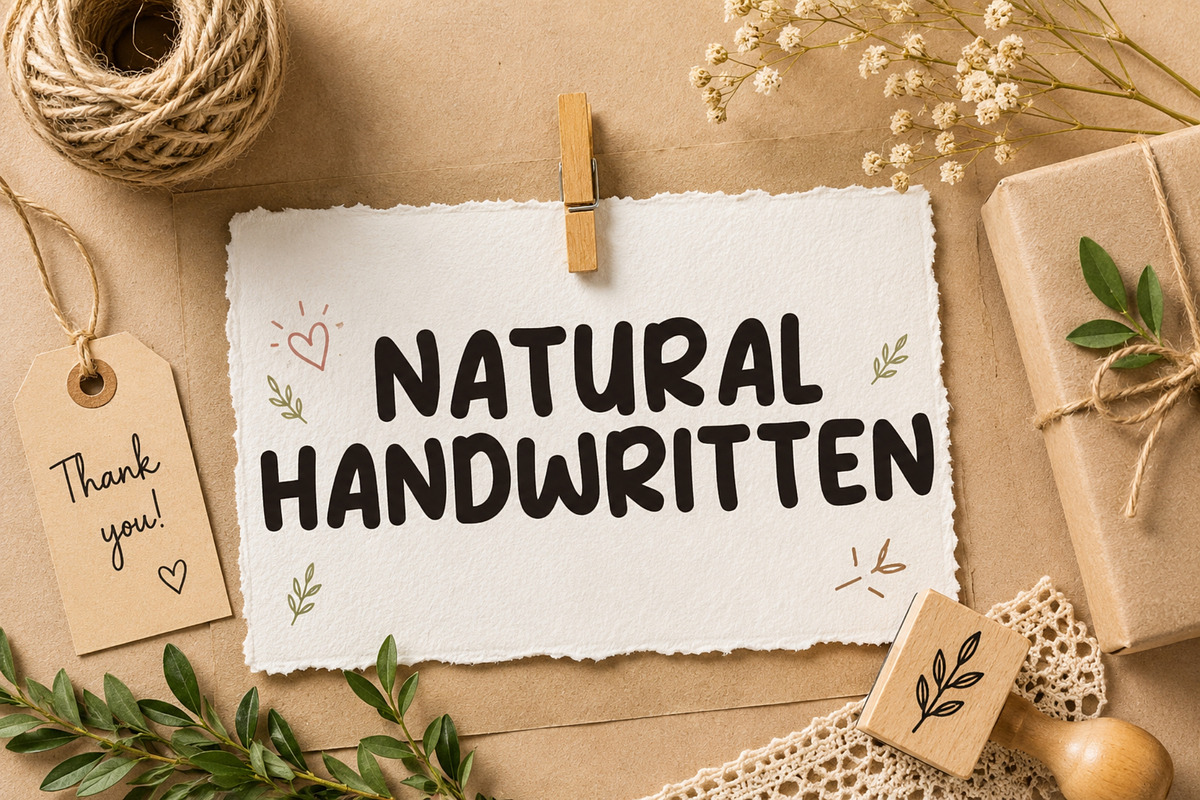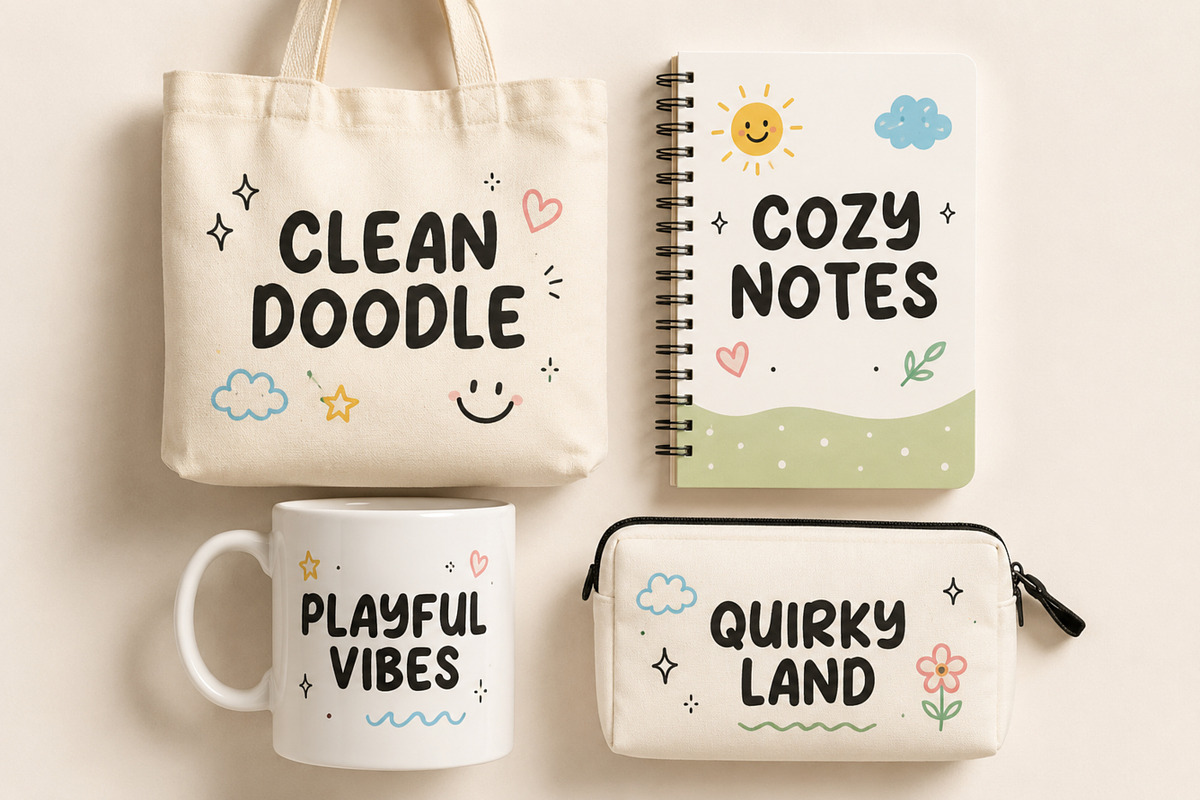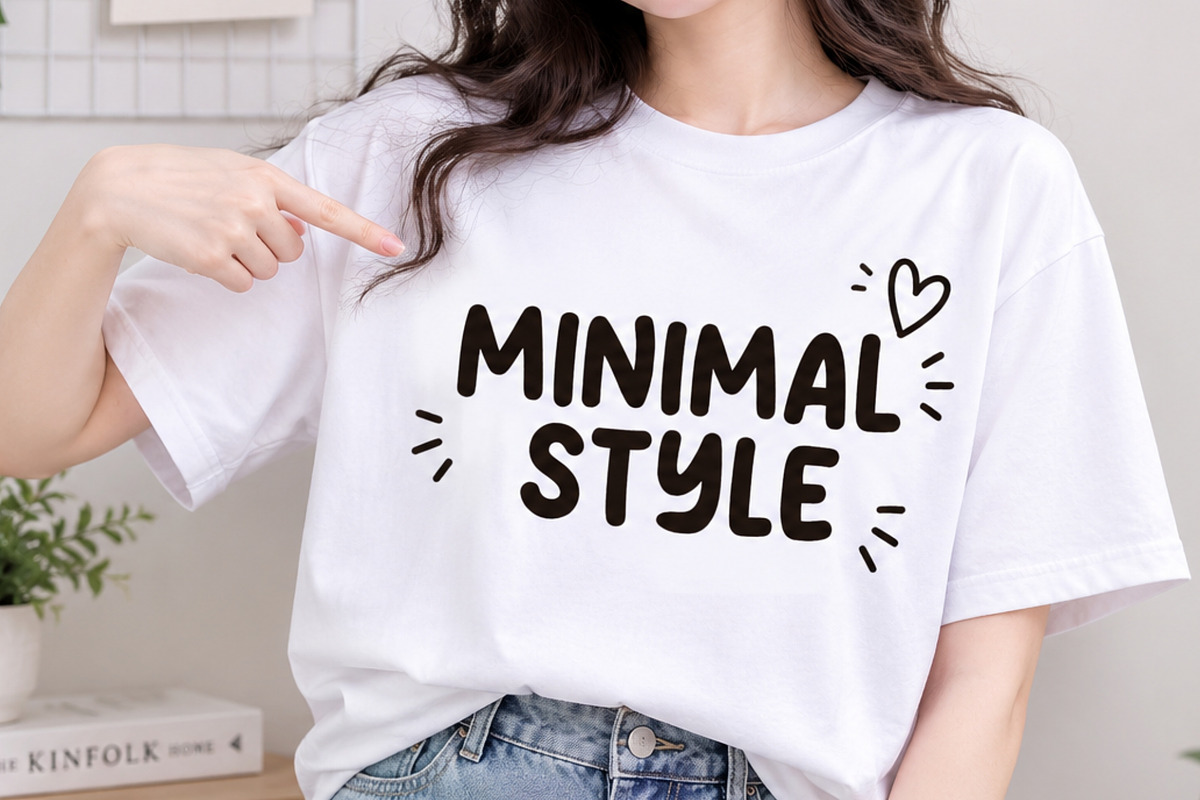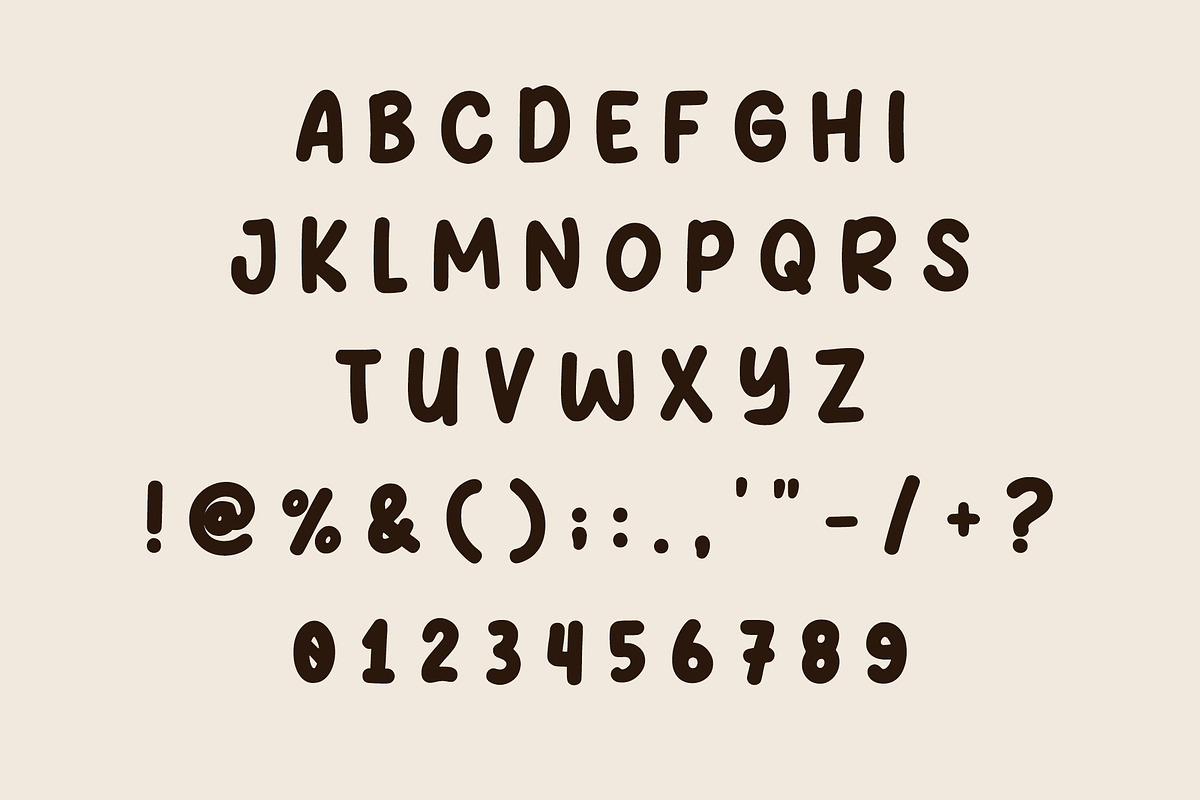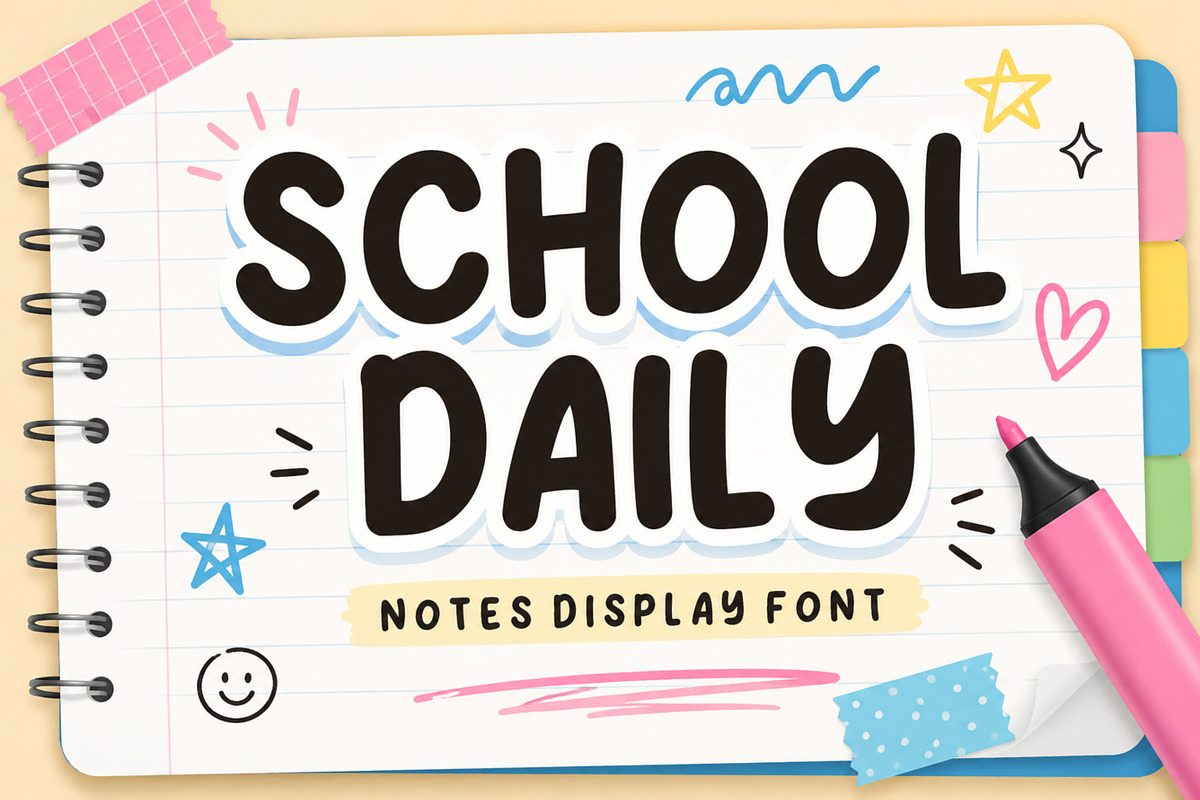
School Daily
School Daily is a cute handwritten display font inspired by school notebooks, classroom doodles, and everyday creativity. Its bold, rounded letterforms create a friendly and cheerful look, making it ideal for kids’ projects, educational materials, and modern handmade designs.
Whether you’re designing classroom decorations, printable worksheets, planner stickers, greeting cards, sublimation products, or Cricut and Silhouette projects, School Daily adds a warm, playful personality to every creation.
School & classroom decorations Teachers resources Kids’ books & worksheets Notebook covers Planner stickers Scrapbooking Greeting cards Birthday invitations T-shirt designs Tote bags Mugs & tumblers Stickers Posters Nursery decor Social media graphics Branding Packaging Cricut projects Silhouette projects Sublimation Printable crafts